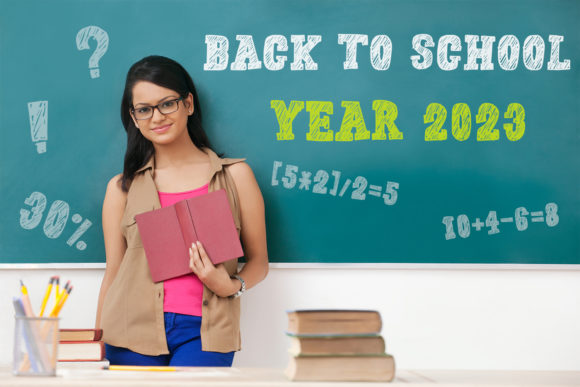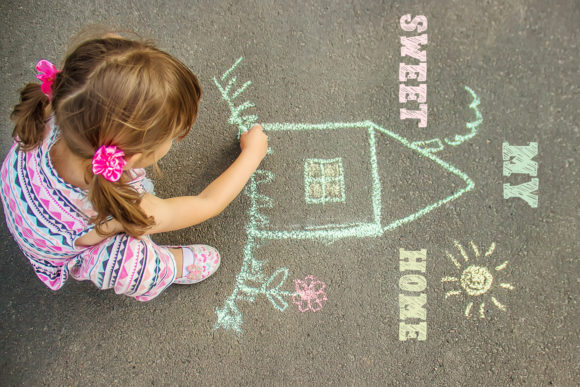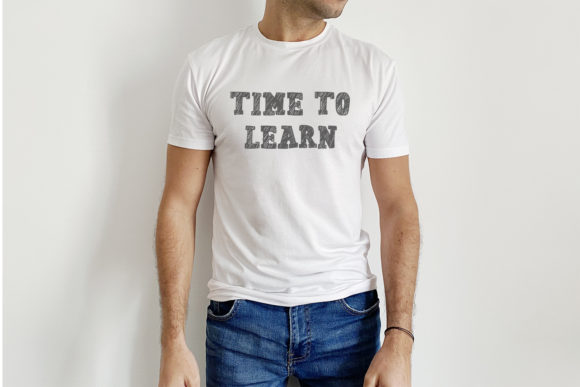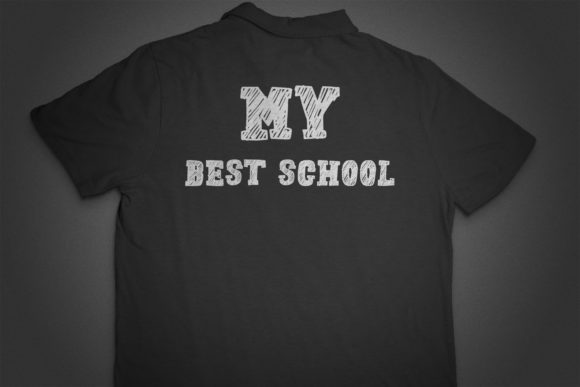
Bringing Childhood Magic to Your Designs
Remember the joy of writing with chalk on the sidewalk as a kid? The feeling of freedom and creativity that came with it? For designers, capturing that essence in a digital format can be a challenge. But what if you could bring back that carefree spirit to your designs with a simple yet effective font?
Enter the Kids Sketch Hand Font, a delightful handwritten font that’s perfect for school-themed projects and chalk-inspired artwork. This font is designed to mimic the organic, playful feel of children’s handwriting, making it an ideal choice for designers looking to add a touch of whimsy to their work. Whether you’re creating educational materials, promotional materials, or simply want to add a personal touch to your designs, the Kids Sketch Hand Font is a valuable asset in your design toolkit.
Kids Sketch Hand Font Key Features
- Font Style: Hand-drawn, sketchy, and childlike, ideal for educational materials, children’s books, and websites targeting a young audience.
- Unique Characteristics: Includes a range of ligatures, swashes, and alternate characters to add a playful touch and create visual interest.
Designer Review: Kids Sketch Hand Font
First off, I love the whimsical and playful vibe of the Kids Sketch Hand Font. ✨ The font’s hand-drawn feel immediately conveys a sense of childhood wonder and creativity. The unique, irregular shapes and lines add a lot of character to the font, making it perfect for projects that need a touch of personality.
One of the things that really stands out about this font is its versatility. ✨ It can be used for a wide range of applications, from children’s book covers to educational materials, and even for branding and advertising campaigns that want to appeal to a younger demographic.
- ⚠️ The font’s lack of consistency in line weight and spacing can make it difficult to read at smaller sizes.
- ⚠️ Some characters, such as the letter “a” and “e”, can be quite uneven, which may not be ideal for projects where precision is key.
Overall, I think the Kids Sketch Hand Font is a great addition to any designer’s toolkit. While it may have some limitations, its unique charm and versatility make it a valuable resource for projects that need a playful, hand-crafted feel.
Use the Kids Sketch Hand Font to create fun and playful graphics, such as birthday invitations and party decorations.
Use the Kids Sketch Hand Font to create custom illustrations and graphics for children’s products and packaging.
Use the Kids Sketch Hand Font to create engaging presentations and documents for children’s events and activities.
The Kids Sketch Hand Font is perfect for creating:
- Custom illustrations and graphics for children’s products
- Engaging presentations and documents for children’s events
- Fun and playful social media graphics
Alternatives to Kids Sketch Hand Font
Great Vibes Font is a modern, cursive script font designed to evoke a sense of freedom and adventure. It’s perfect for designers looking to create a fun, youthful atmosphere in their designs. Great Vibes Font is more polished and refined compared to Kids Sketch Hand Font, making it suitable for a wider range of applications.
Dancing Script Font is a elegant, cursive script font designed to add a touch of sophistication to designs. It’s ideal for designers looking to create a luxurious, high-end feel. Compared to Kids Sketch Hand Font, Dancing Script Font is more formal and less playful, making it better suited for corporate or luxury branding.
Carolyna Pro Font is a modern, cursive script font designed to add a touch of elegance and sophistication to designs. It’s perfect for designers looking to create a high-end, luxurious atmosphere. Carolyna Pro Font is more refined and polished compared to Kids Sketch Hand Font, making it suitable for a wide range of applications, from branding to advertising.
For optimal readability, we recommend using the Kids Sketch Hand Font at a minimum size of 12pt and a line height of 1.2 to 1.5 times the font size. This will ensure the text remains clear and easy to read, even for younger children.